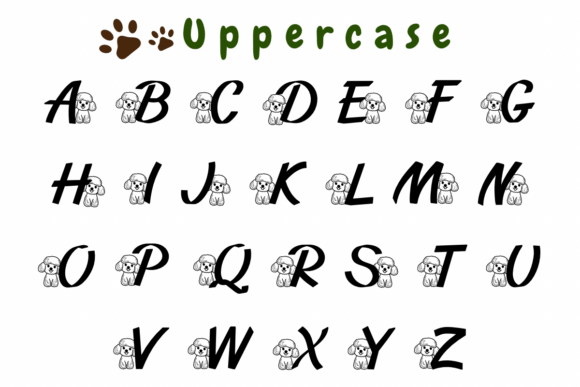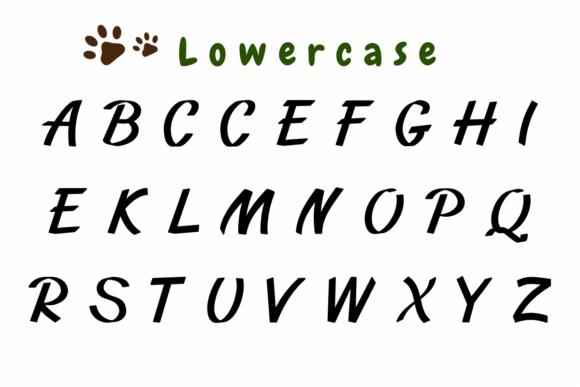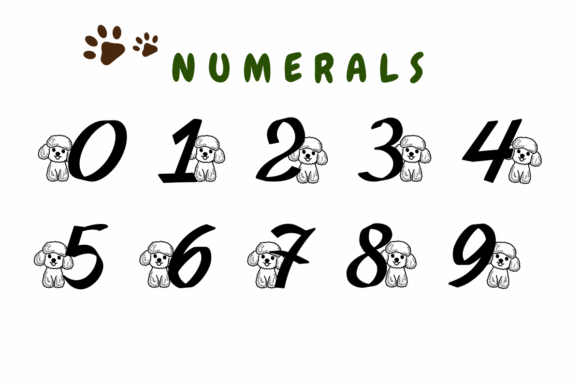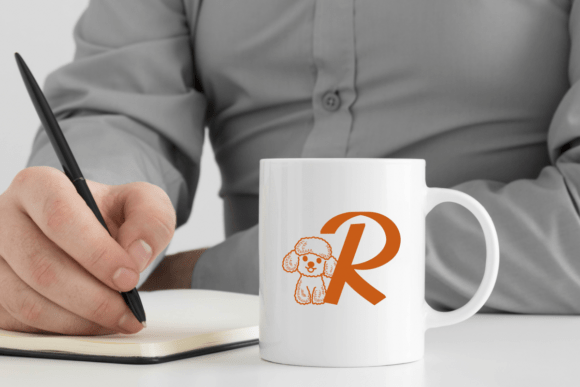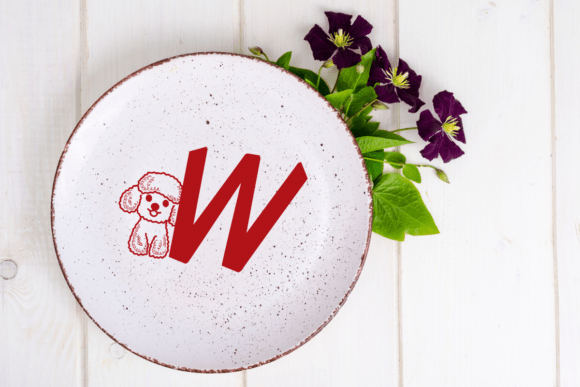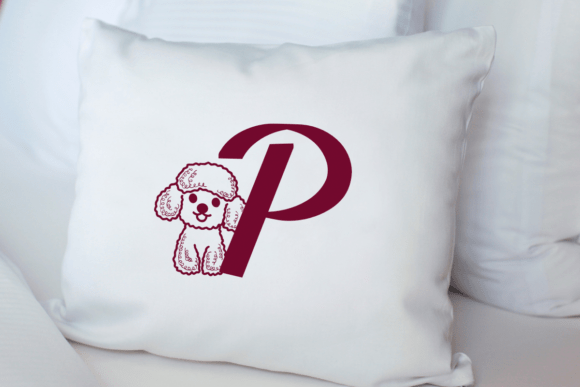
Meet the Paw-fect Addition to Your Designs: Dog Font
Have you ever been brainstorming a design project and suddenly, a burst of creativity strikes? You envision a playful logo, a cheerful birthday invitation, or a whimsical pet-themed event. That’s when the idea hits you – you need a font that captures the essence of fun and cuteness. Enter Dog Font, a delightful decorative font that brings a splash of personality to your designs.
This charming font is more than just a typeface; it’s an experience. Each letter is infused with lovable poodle illustrations, making every design a joy to behold. With Dog Font, you can add a touch of playfulness to your branding, logos, and social media graphics. Whether you’re a designer, pet lover, or parent, this font is sure to bring a smile to your face and a dash of creativity to your work.
Dog Font Key Features
- Font Family: Dog Font is a unique, hand-drawn font that features a pack of dog breeds.
- Character Set: Includes a wide range of characters, including uppercase and lowercase letters, numbers, and punctuation marks.
- Resolution: Designed to be scalable, Dog Font can be used at high resolutions without compromising its quality.
- Unique Characteristics: Features a playful, handwritten style with intricate details and textures, making it perfect for creative projects.
Review: Dog Font
Overall, I have mixed feelings about the Dog Font. While it’s certainly a unique and quirky choice, it’s not without its limitations.
- ✨ Unique style and personality – Dog Font has a certain je ne sais quoi that sets it apart from more generic fonts.
- ✨ Great for creative and playful projects – If you’re looking to add some whimsy to your design, Dog Font is a great choice.
- ✨ Good for titles and headings – Dog Font’s bold, playful style makes it well-suited for titles and headings.
- ⚠️ Limited legibility – At smaller font sizes, Dog Font can be difficult to read, which may limit its use in body text.
- ⚠️ Limited font sizes – Dog Font is best used at larger font sizes, where its unique style can shine.
- ⚠️ May not be suitable for formal projects – While Dog Font is great for creative and playful projects, it may not be the best choice for more formal or professional projects.
Overall, I would recommend Dog Font for projects where a unique and playful style is desired, but be aware of its limitations and potential uses.
Getting the Most Out of “Dog Font”
To get the most out of “Dog Font”, try the following tips:
- Combine “Dog Font” with other fonts for a unique look.
- Use “Dog Font” to create bold, eye-catching headlines.
“Dog Font” is commonly used for:
- Designing pet-themed graphics and logos.
- Creating playful and fun social media posts.
- Adding a whimsical touch to children’s products and packaging.
Alternatives to “Dog Font” for Designers
Great Vibes is a beautiful, handwritten font perfect for creating a friendly and approachable atmosphere in your designs. It’s ideal for headings, quotes, and other text elements where a personal touch is desired. Compared to Dog Font, Great Vibes has a more elegant and refined feel, making it suitable for a wider range of design projects.
Pacifico is a modern, cursive font that exudes a sense of relaxation and sophistication. It’s perfect for designing logos, packaging, and other branding materials where a unique and memorable look is required. Unlike Dog Font, Pacifico has a more streamlined and minimalist aesthetic, making it ideal for contemporary designs.
Dancing Script is a playful, handwritten font that’s perfect for adding a touch of whimsy and fun to your designs. It’s ideal for creating eye-catching headlines, social media graphics, and other promotional materials where a bold and attention-grabbing look is desired. Compared to Dog Font, Dancing Script has a more dynamic and energetic feel, making it suitable for younger audiences and more experimental designs.
Alex Brush is a elegant, handwritten font that’s perfect for creating a sense of sophistication and refinement in your designs. It’s ideal for designing high-end branding materials, such as luxury logos, packaging, and invitations. Compared to Dog Font, Alex Brush has a more subtle and understated feel, making it suitable for more formal and traditional designs.